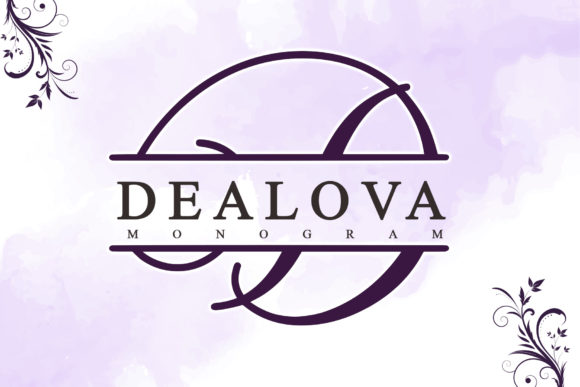
**Dealova Monogram: A Monogram Font That Will Make Your Projects Shine**
In a world where individuality and self-expression reign supreme, Dealova Monogram emerges as an exceptional script font, ready to captivate your creative endeavors. Inspired by the allure of winter, this font possesses an inherent charm that will transform your designs into captivating works of art.
Crafted with meticulous attention to detail, Dealova Monogram exudes a modern flair that effortlessly adds a touch of elegance to any project. Its carefully designed curves and delicate swashes create a harmonious visual symphony, capturing the essence of romance and sophistication.
Immerse yourself in the world of Dealova Monogram and discover a font that transcends the boundaries of ordinary. Let your imagination soar as you create:
**• Exquisite Wedding Invitations:** Elevate your special day with Dealova Monogram's enchanting touch. Its graceful lines and timeless appeal will make your wedding invitations cherished keepsakes, forever reminding you of love's eternal beauty.
**• Breathtaking Stationary Art:** Unleash your inner artist and create breathtaking stationary art with Dealova Monogram. Its versatility knows no bounds as it seamlessly blends with various artistic styles, adding a touch of sophistication to your personal correspondence.
**• Eye-Catching Social Media Posts:** Captivate your social media audience with Dealova Monogram's captivating presence. Design visually stunning posts that resonate with your followers, leaving a lasting impression that sets you apart from the crowd.
**• Heartwarming Greeting Cards:** Spread joy and warmth with Dealova Monogram's heartfelt designs. Create unique greeting cards that convey your genuine sentiments, leaving a lasting impression on your loved ones.
**• Enchanting DIY Projects:** Bring your creative visions to life with Dealova Monogram's versatility. Use it to embellish home décor, design personalized gifts, or create unique party invitations. The possibilities are endless, limited only by your imagination.
Embrace Dealova Monogram and embark on a creative journey where your projects blossom into masterpieces. Experience the magic of a font that captivates hearts and ignites imaginations.